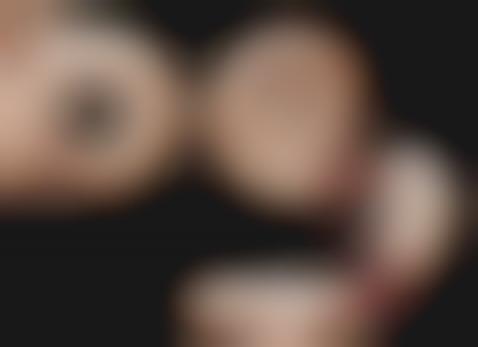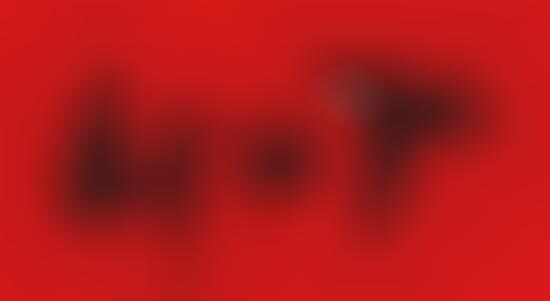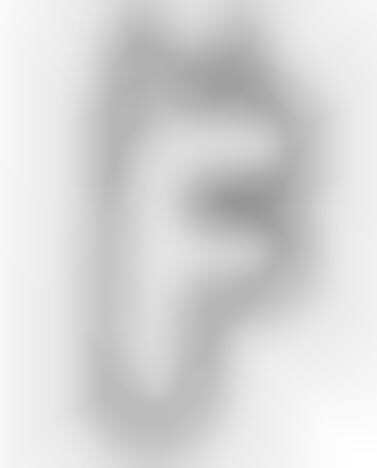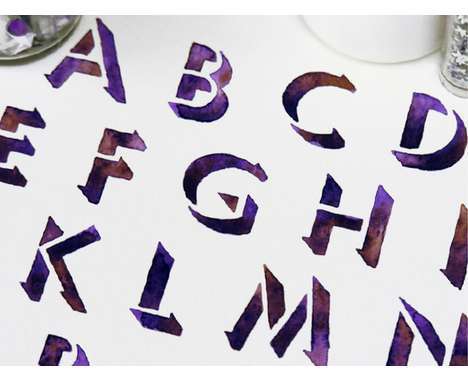
25 Fantastically Fabulous Fonts
From Furniture Letters to Typography Cookies
Computers can do just about anything, including the creation of some fantastically fabulous fonts. From using pictures of animals as fonts to naughty licking fonts, there are many different styles of fonts that portray what you're trying to say.
Branch out from that boring old Times New Roman and try some of these incredibly cool typefaces. There are plenty of wild and crazy fonts to choose from.
Implications - Text is undoubtedly an integral part of branding, marketing campaigns and of course advertising. Businesses that consider thinking outside the box with their use of text can help consumers receive a pleasurable experience while reading about your particular product or service.